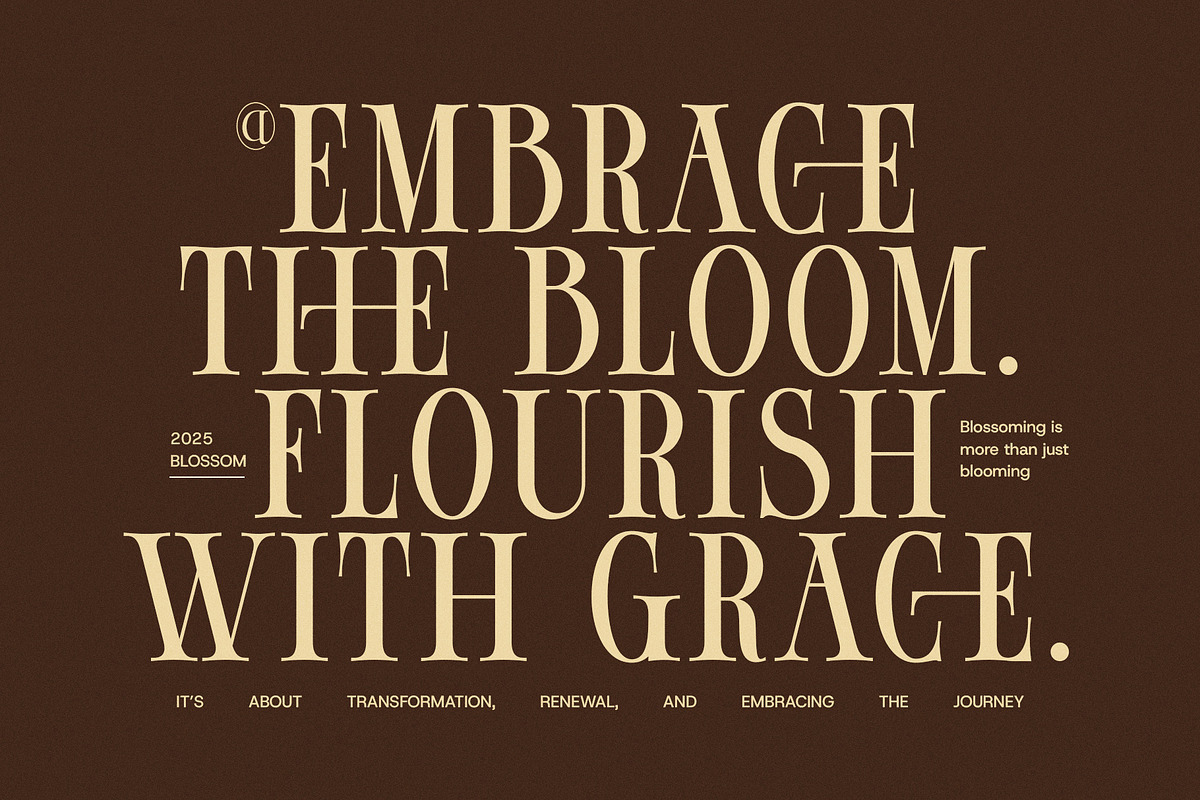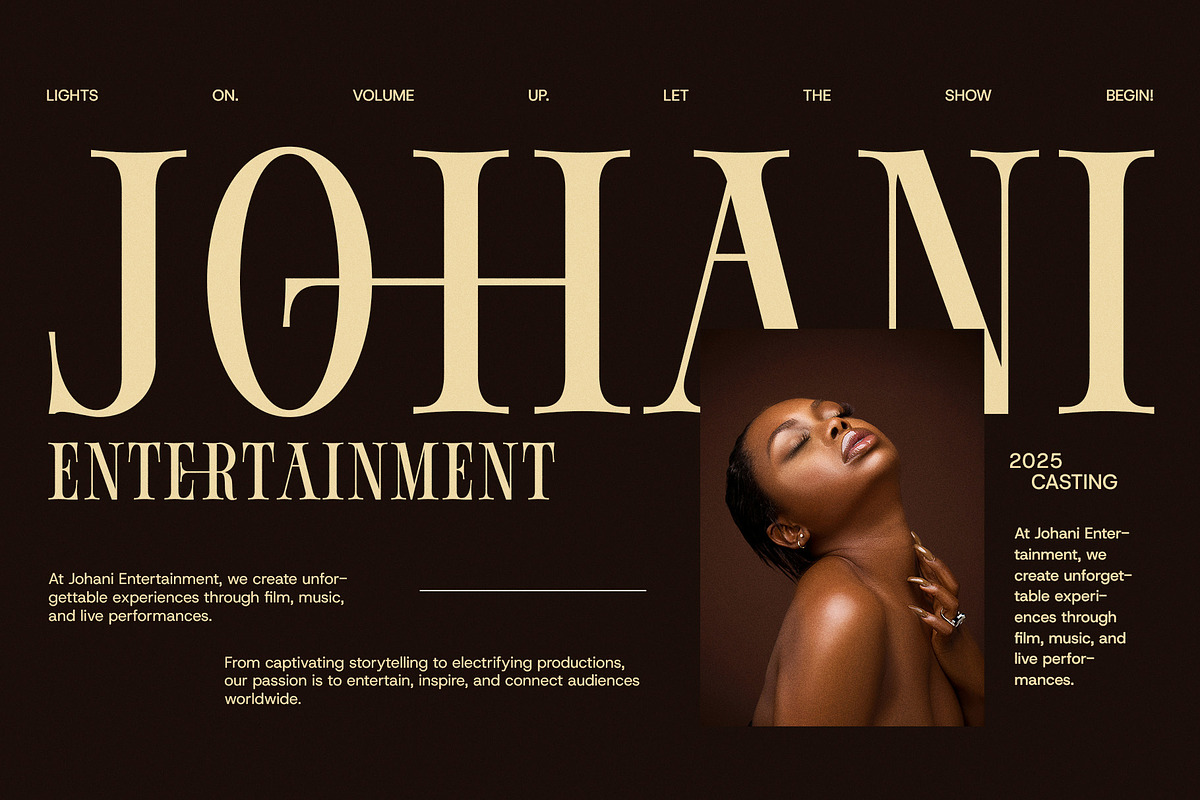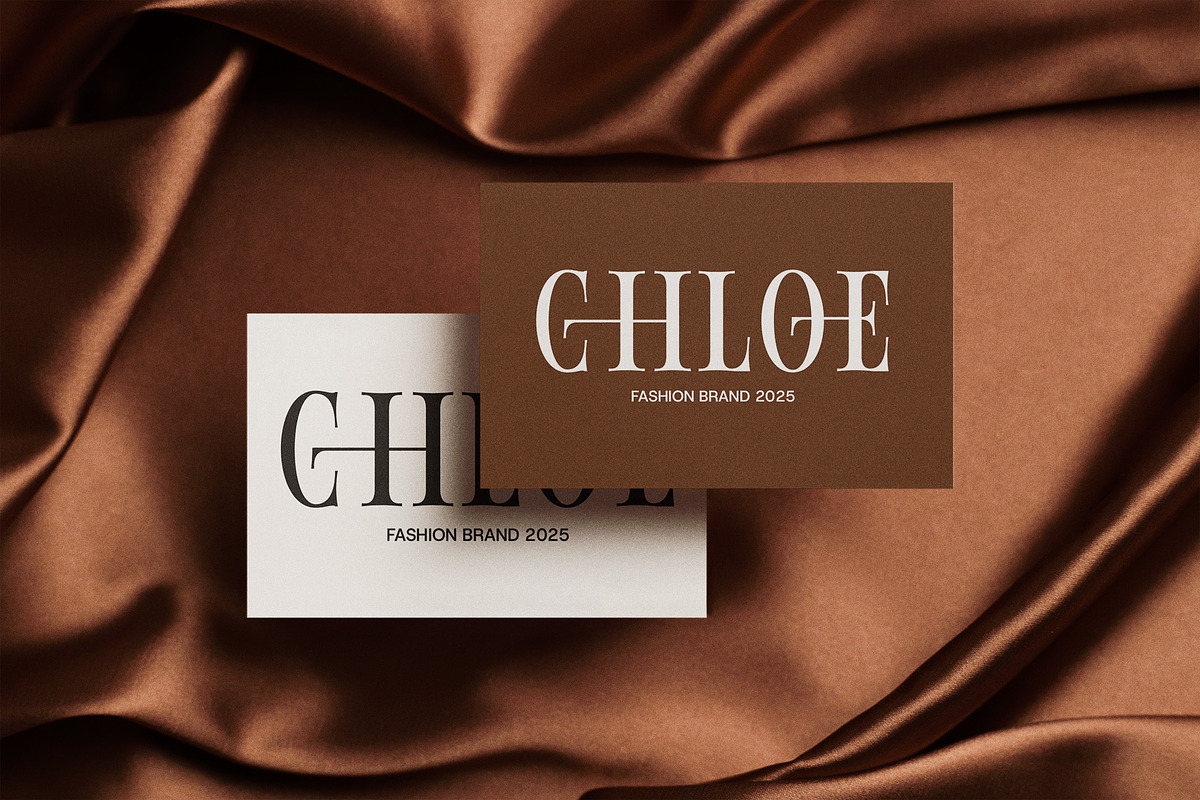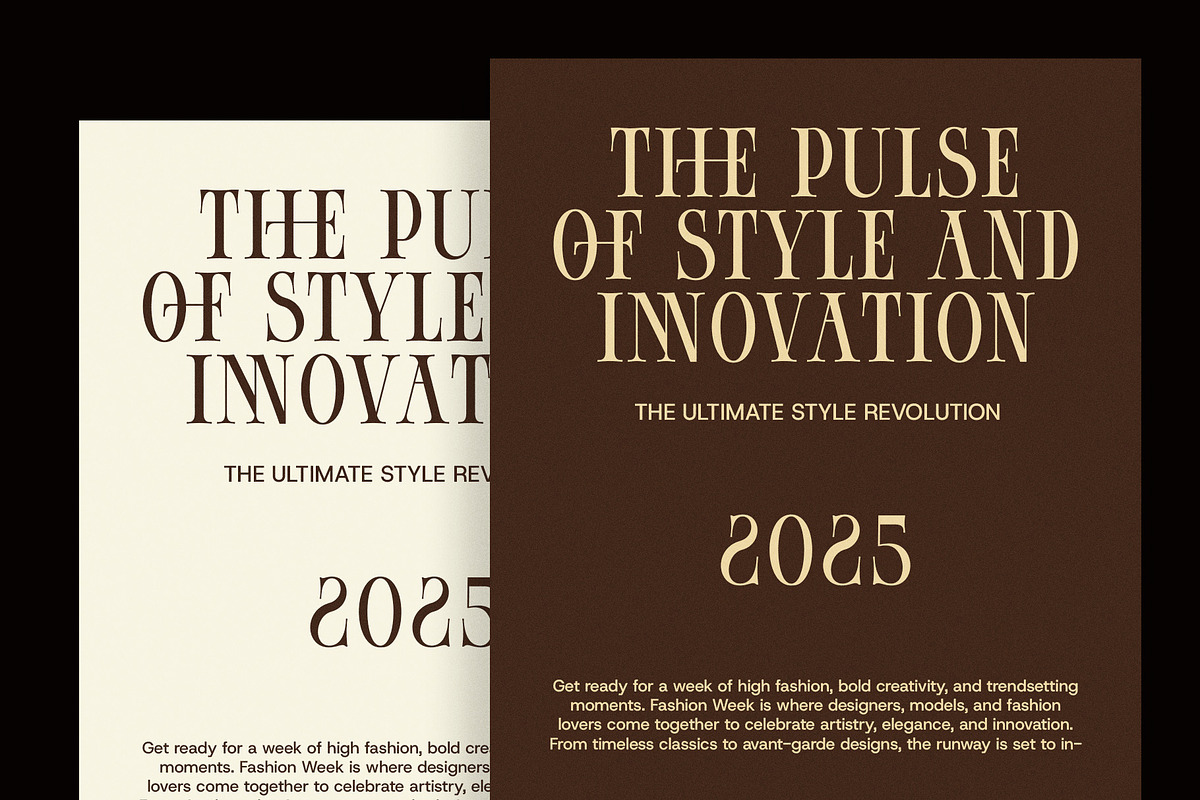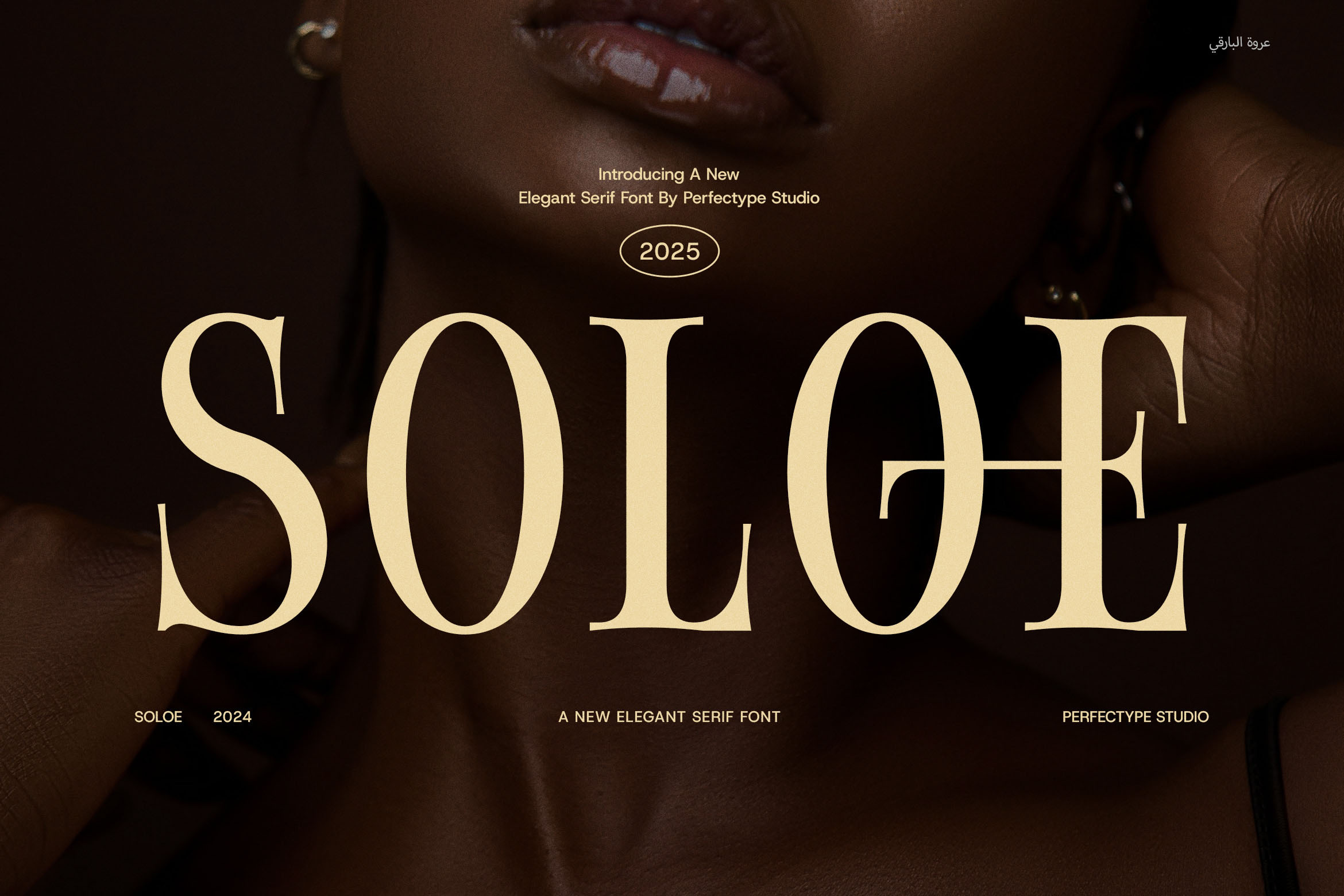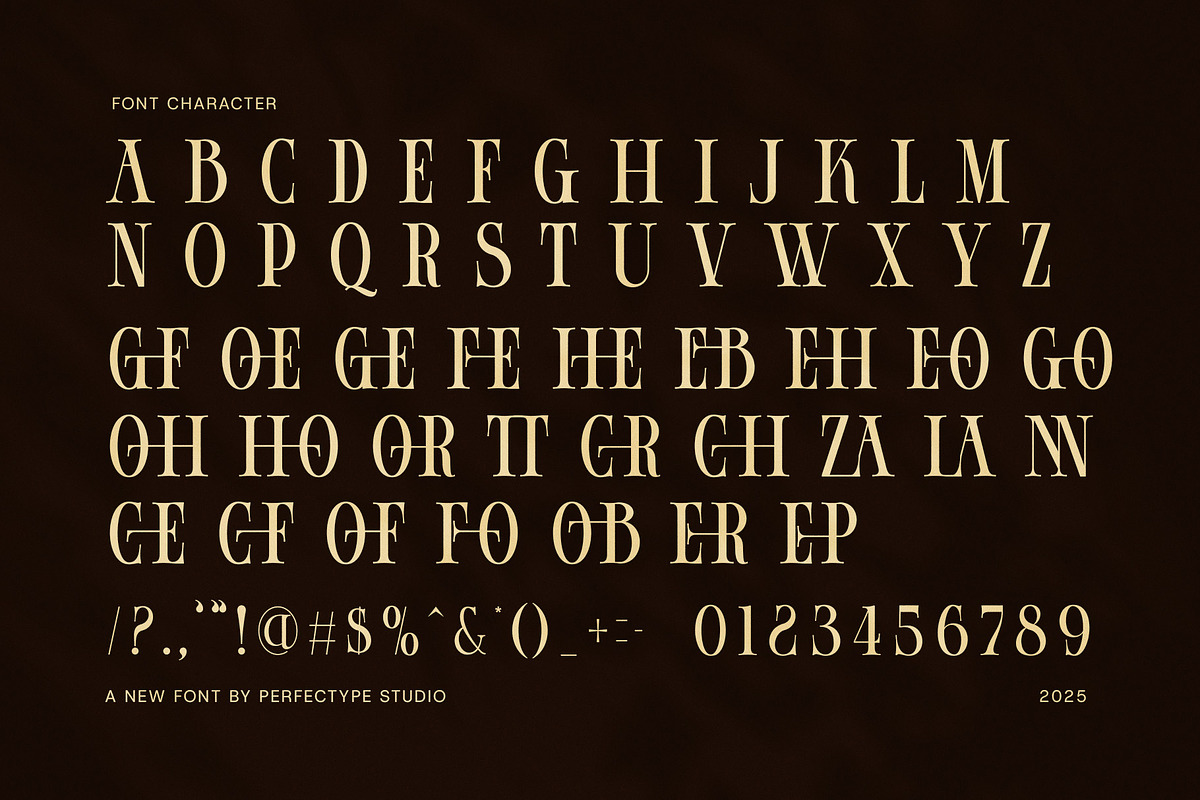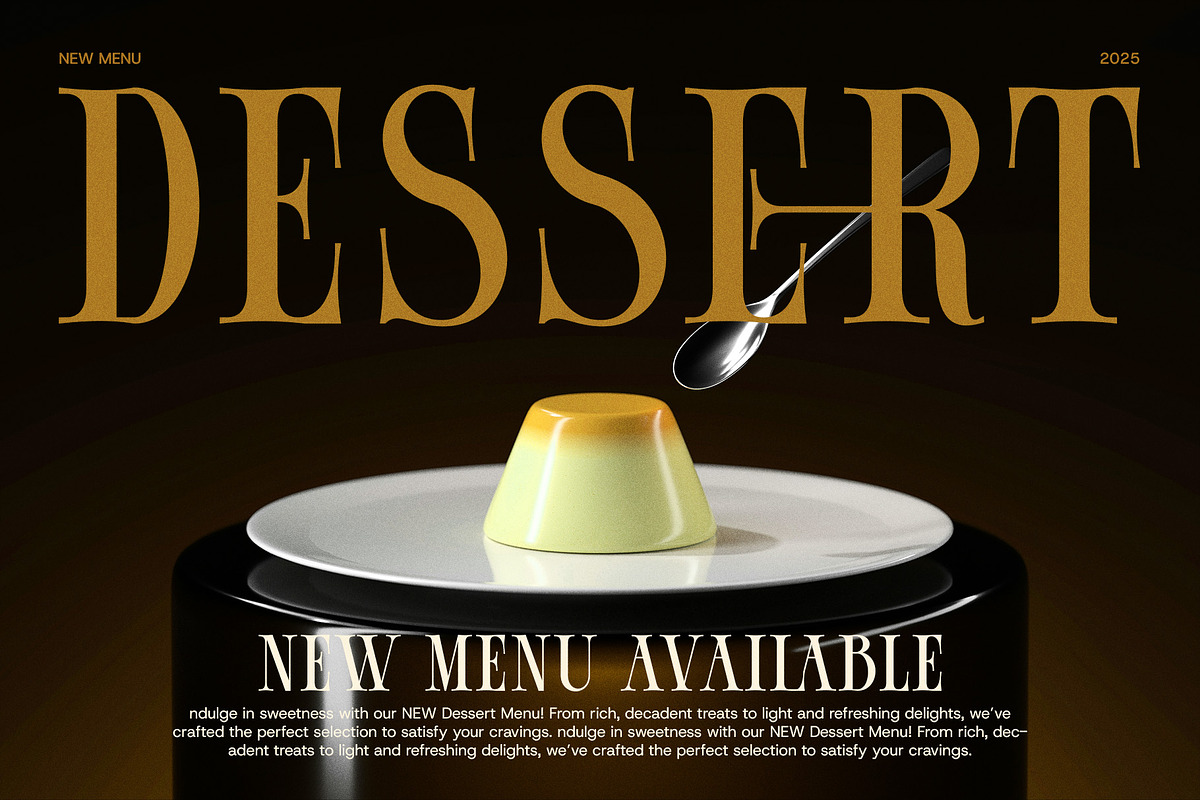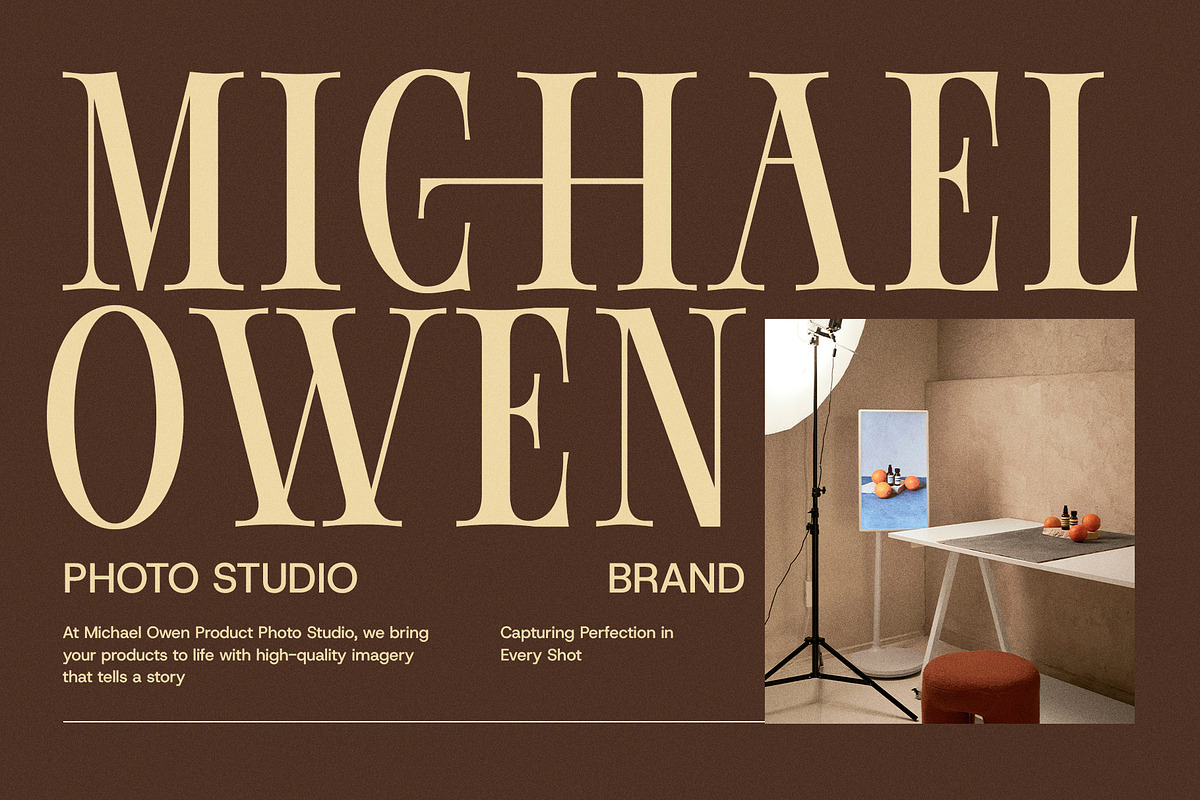
Soloe Elegant Serif Font
introducing Soloe, a beautifully balanced elegant serif font designed to bring sophistication, clarity, and a refined sense of style to any creative project. With its graceful curves, crisp contrast, and subtle details, Soloe is a perfect blend of classic serif charm and modern design sensibility.
Crafted with elegance in every stroke, Soloe features distinctive ligatures and expressive alternates that allow for high-end typographic customization. Whether you're designing for a luxury brand, crafting a stylish logo, or building a bold editorial layout, this font offers the creative flexibility to make your message truly stand out.
Soloe is more than just a font—it’s a visual voice for those who want their work to speak with confidence and class. Its clean, sculpted letterforms are perfect for everything from fashion branding, boutique packaging, and magazine headlines to wedding invitations, cosmetic labels, and premium product designs. It also shines in digital environments such as web design, social media graphics, and branding kits.
Thanks to its range of stylistic alternates and ligatures, Soloe adapts effortlessly to both minimal and elaborate design concepts. Its versatile nature allows you to craft everything from elegant logotypes to sophisticated layouts, giving your projects a distinctive, memorable edge.
Use Soloe to bring a refined, modern aesthetic to your work—whether you're designing for a high-end restaurant, a lifestyle blog, a creative agency, or an artisan product line. Its elegant structure ensures excellent readability, while its unique features add personality and flair.
Soloe Elegant Serif Font is the ideal typeface for creators who demand both beauty and function. Let Soloe elevate your typography and give your designs the polished, stylish finish they deserve.